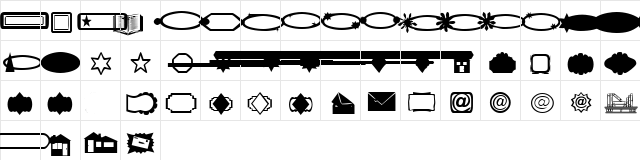
Web Design Dings Regular
Design Context for Web Design Dings Typeface
Web Design Dings is a composed and adaptable typeface that performs quietly and consistently across a wide range of design contexts.